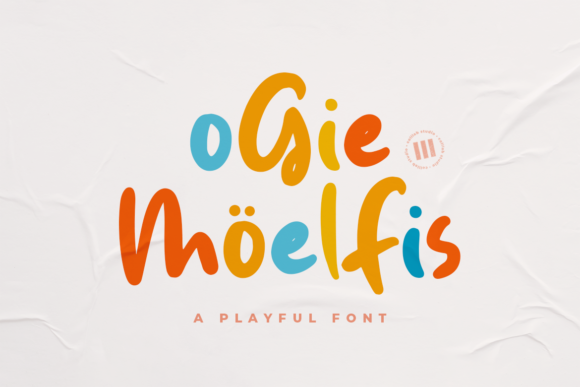
Ogie Moelfis Font: Unleash Your Creativity with a Touch of Casual Elegance
In a world saturated with cookie-cutter fonts, Ogie Moelfis emerges as a breath of fresh air, a font family that captures the essence of individuality and personal expression. Its casual brush script style is a testament to the artistry of human handwriting, evoking a sense of warmth and authenticity that instantly resonates with the viewer.
With its unique, natural, and captivating vibe, Ogie Moelfis is a versatile font that seamlessly adapts to a wide range of design projects, from logos and branding to posters and quotes. Its playful yet sophisticated charm lends itself to party invitations and stationary art, adding a touch of whimsy to any occasion. Social media posts come alive with Ogie Moelfis, as its eye-catching characters command attention and leave a lasting impression.
More than just a font, Ogie Moelfis is an invitation to let your creativity run wild. Its free-flowing strokes and organic curves inspire a sense of freedom and spontaneity, encouraging you to break free from the mundane and embrace the extraordinary. Whether you're a seasoned designer or just starting out, Ogie Moelfis is the perfect tool to add a personal touch to your projects and captivate your audience.
Step into the world of Ogie Moelfis and discover a font that is as unique as your imagination. Its casual elegance and versatility make it the ideal choice for those seeking to make a statement, to leave an imprint on the world with their designs. Unleash your creativity and let Ogie Moelfis guide you towards greatness.
- Casual brush script style
- Unique, natural, and captivating vibe
- Suitable for a wide range of design projects
- Perfect for logos, branding, posters, quotes, party invitations, stationary art, social media posts, and much more!